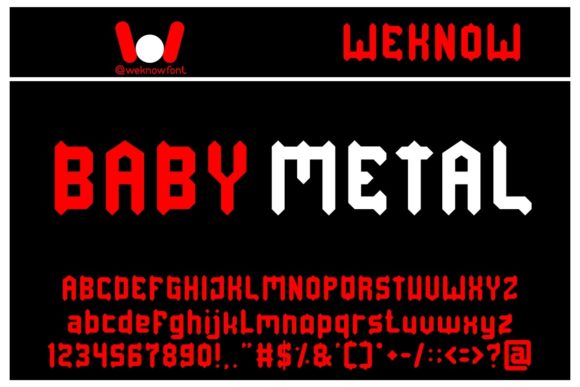
Journey into the Realm of Baby Metal: A Font that Embraces the Dark and Enthralling
Unleash the power of the Baby Metal font, a modern blackletter masterpiece that exudes an aura of mystery and intrigue. Immerse yourself in the world of gothic elegance, where sharp edges and bold curves dance together to create a visual symphony that captivates and awes.
Designed with meticulous precision, Baby Metal is not just a font; it's an experience that transports you to a realm of creativity and expression. Its dark and alluring aesthetic is perfect for capturing the essence of logos, logotypes, headlines, and corporate identities that demand attention.
Visualize your designs adorned with the Baby Metal font, commanding presence and leaving an indelible mark on your audience. Let your imagination run wild as you craft posters, music covers, movie titles, and game interfaces that emanate an otherworldly charm.
With Baby Metal as your creative companion, you'll conquer the digital realm, weaving your words into captivating YouTube videos and Instagram posts that ignite curiosity and engagement. Elevate your website's design to new heights, leaving a lasting impression on visitors who will be mesmerized by the font's striking personality.
Embrace the Baby Metal font, and let your creativity flourish like never before. Dive into the depths of your imagination and bring forth designs that captivate and inspire.